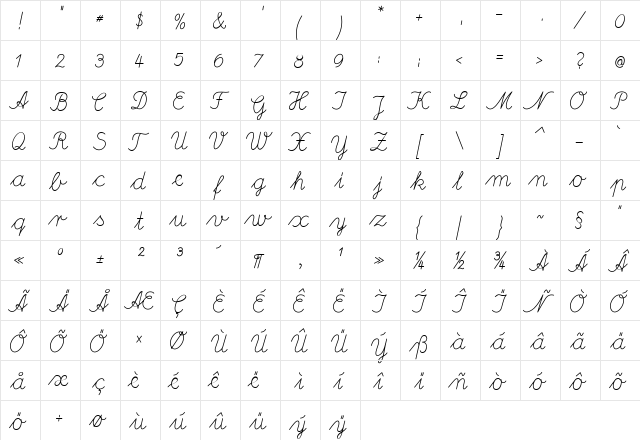
Deutsche Normalschrift Regular
| Foundry | Peter Wiegel |
| Designer | Peter Wiegel |
Design Context for Deutsche Normalschrift Typeface
Deutsche Normalschrift offers clean, dependable letterforms without strong stylistic allegiance, making it a practical choice for designers who need flexibility.